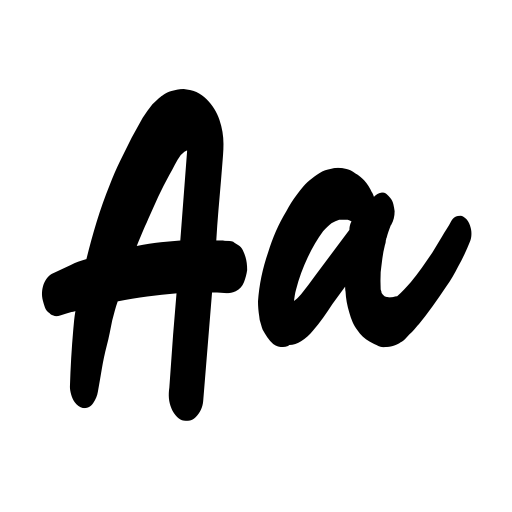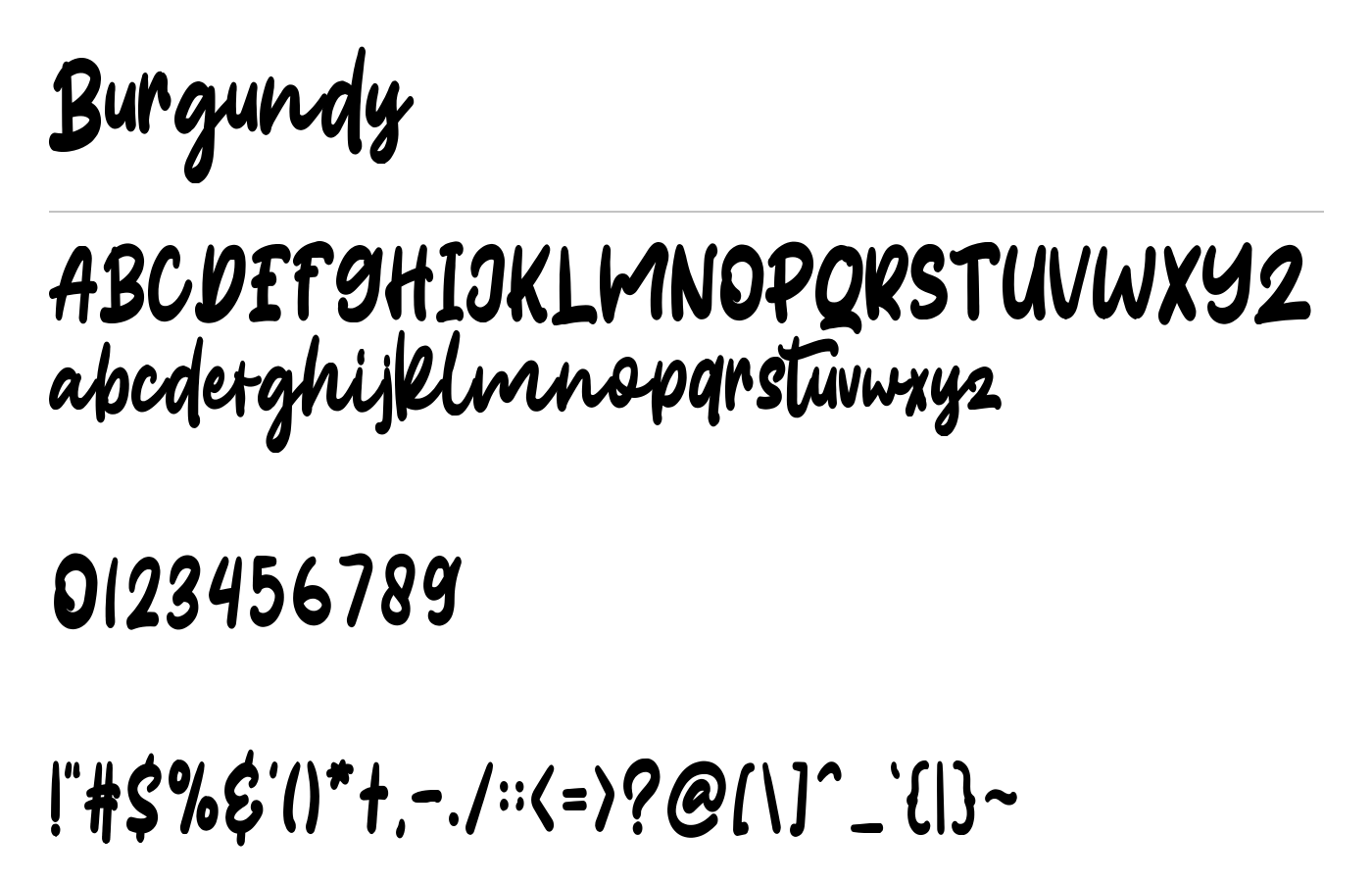
Burgundy is a playful, hand-drawn script font with a bold, casual feel, featuring smooth, rounded strokes and moderate contrast. It offers lively uppercase and lowercase letters with some charming quirks that give it a friendly, energetic personality, making it ideal for informal branding, creative headings, and fun, approachable designs. This font works best in logos, posters, and packaging where a personal, vibrant touch is desired.
Burgundy Font
About Burgundy Font
| Font family | Burgundy Font |
| Designer | Stefie Justprince |